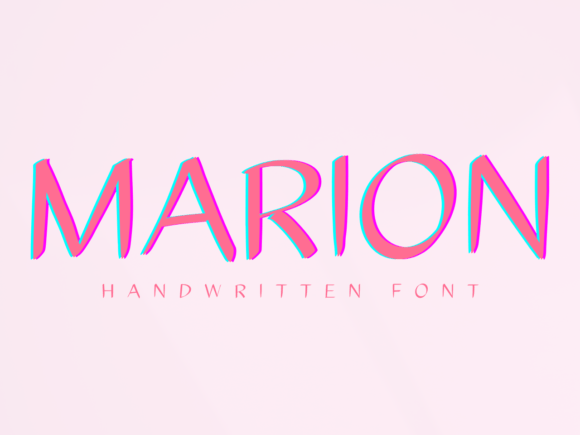
Dive into the depths of creativity with Marion Font, the ultimate script font for boat lettering that sets sail towards uniqueness. Inspired by the gentle waves and the vast expanse of the open sea, Marion captures the essence of nautical charm, inviting you on an enchanting voyage of artistic expression.
Immerse yourself in a realm where letters dance like dolphins, each stroke a ripple in the calm waters of your imagination. Marion's enchanting flow and undeniable grace provide a canvas for your words, transforming them into captivating works of art. Whether you're a seasoned sailor or a landlubber with a passion for the sea, Marion is your trusty companion, ready to navigate the uncharted territories of design.
With Marion at the helm, you'll embark on a typographic adventure like no other. Its friendly and approachable nature makes it the perfect choice for personalizing your boat, creating custom signage that reflects your love for the maritime world. Picture your boat name gracefully adorning its hull, written in Marion's elegant script, a testament to your passion for the open seas.
Beyond the realm of boats, Marion's versatility extends to a myriad of creative endeavors. Its natural and unique style harmonizes effortlessly with invitations, greeting cards, posters, and social media graphics. Marion breathes life into your words, adding a touch of whimsy and wonder to every project.
Unleash your inner artist and let Marion guide you through a symphony of creativity. Its organic curves and playful lines invite you to explore the boundless possibilities of self-expression. With Marion as your muse, your designs will exude a sense of harmony and effortless charm, leaving an indelible mark on the hearts of those who behold them.
Join the ranks of creative adventurers who have embraced Marion's magic. Let your imagination set sail with this exceptional font, and together, you'll create masterpieces that capture the essence of the sea and beyond. Dive into the world of Marion Font today and embark on a journey of artistic discovery that will leave you spellbound.